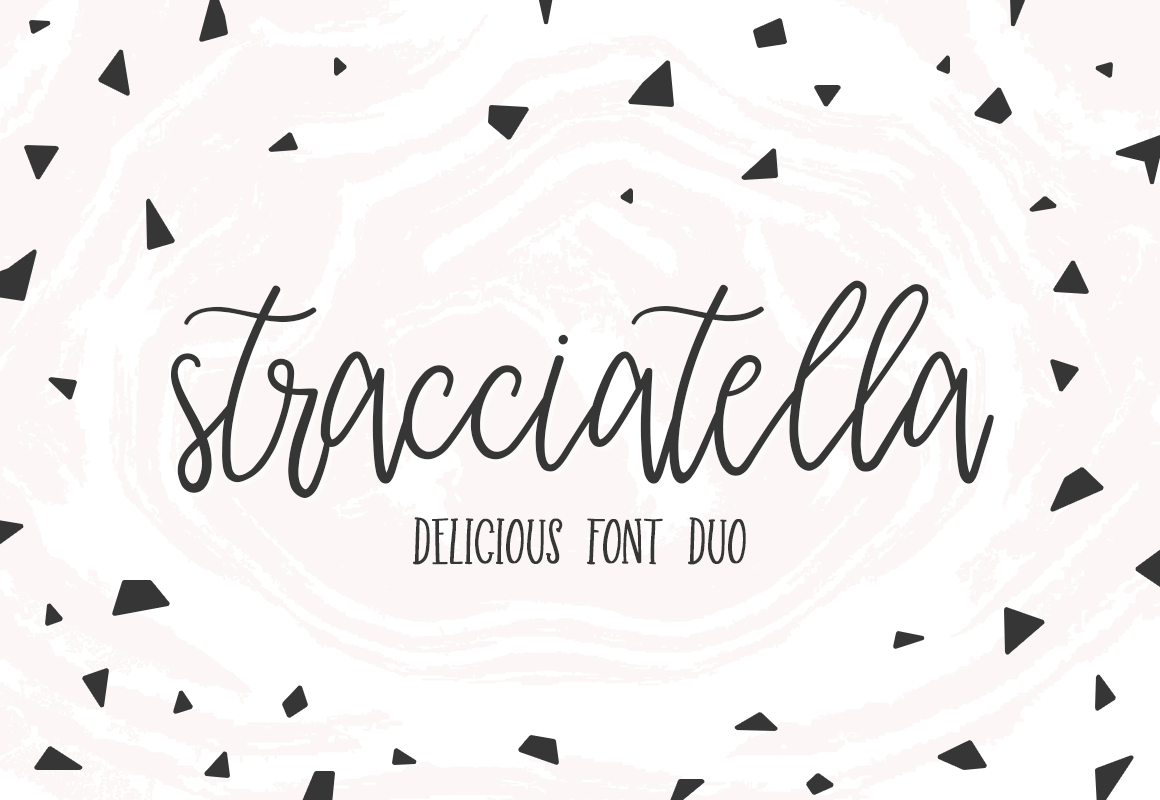
Stracciatella - Delicious font
Stracciatella is a calligraphic font with script lowercase characters and slab hand-written uppercase characters. It includes:
- Lowecase and uppercase letters
- Latin extended characters, basic currencies, punctations, and numbers
- 46 ligatures
- PUA encoded extra characters